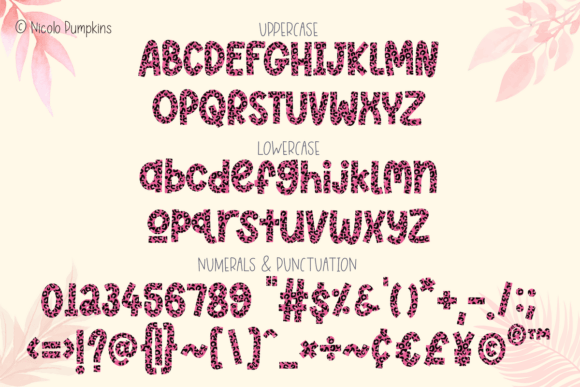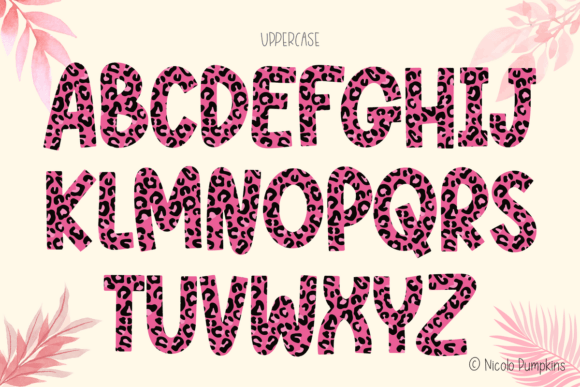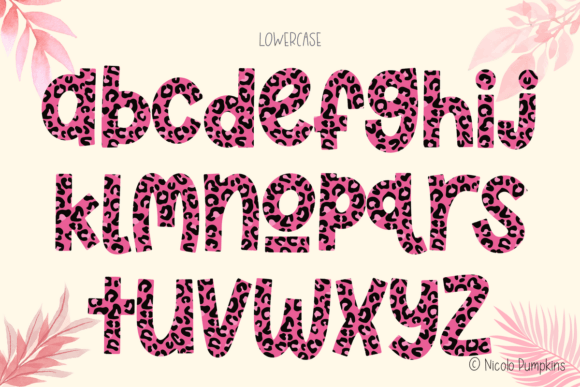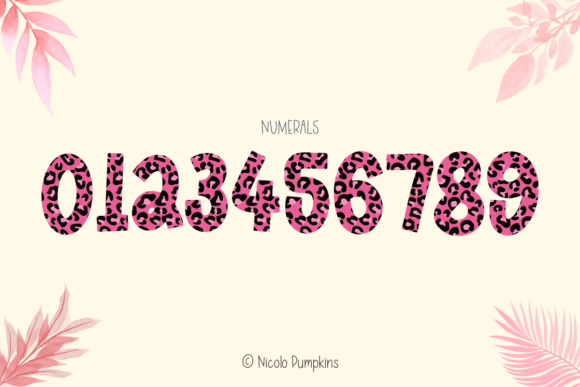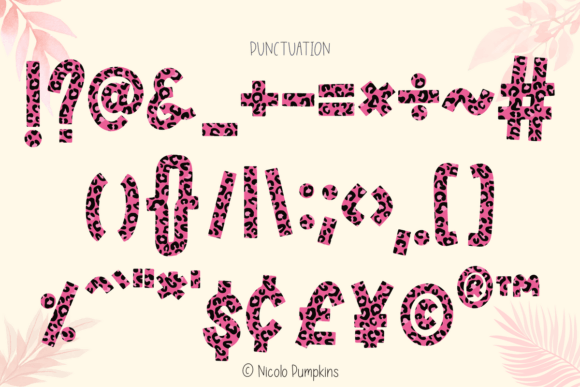
Introduction to Leopard Dark Pink Font
Have you ever stared at a blank canvas, trying to bring your creative idea to life, only to find the perfect font to tie everything together? That’s exactly what happened to many designers when they discovered the Leopard Dark Pink Font. This chic, cute, and friendly color font has become a go-to design resource for women’s designs, and for good reason.
Whether you’re designing t-shirts, tote bags, hats, stickers, or even wedding designs, the Leopard Dark Pink Font is sure to make your creative project stand out. With its high-quality design and transparent background, this font is perfect for any designer looking to add a touch of elegance and whimsy to their work.
Key Features of Leopard Dark Pink Font
- Unique and playful design ideal for creative projects, offering a distinctive touch to any design resource.
- High-quality font with a transparent background, allowing for seamless integration into various design elements.
- Perfect for use in digital design, print materials, and web applications, thanks to its versatility and aesthetic appeal.
- Leopard Dark Pink Font is a one-of-a-kind design element that can elevate any creative project with its bold and eye-catching style.
Honest Review: Leopard Dark Pink Font
I recently came across the Leopard Dark Pink Font, and I was excited to dive in and see what it had to offer. As a designer, I’m always on the lookout for new design resources to enhance my creative projects.
One of the things that works well with this font is its unique blend of modern and playful styles. The dark pink color scheme adds a touch of sophistication, making it perfect for a variety of design applications. The transparent background feature also allows for seamless integration into any project.
- ✨ Unique blend of modern and playful styles
- ✨ Transparent background feature for easy integration
However, there are a few limitations to consider. The font may not be suitable for all design applications, and the dark pink color scheme may not appeal to everyone’s taste.
- ⚠️ May not be suitable for all design applications
- ⚠️ Dark pink color scheme may not appeal to everyone
Overall, I’d say the Leopard Dark Pink Font is a solid addition to any designer’s toolkit. It’s free to download and offers a unique and high-quality design experience. Just be sure to consider the limitations before using it in your next creative project.
The Leopard Dark Pink Font is commonly used in creative projects such as logo design, branding, and marketing materials. It’s also great for adding a pop of color to presentations and reports. With its high-quality design and unique style, this font is perfect for anyone looking to add a touch of creativity to their work.